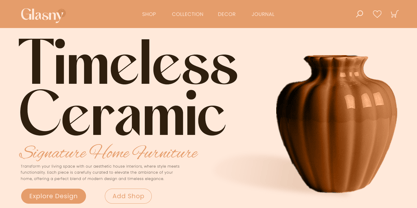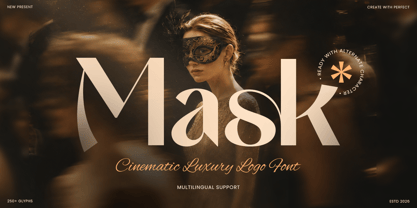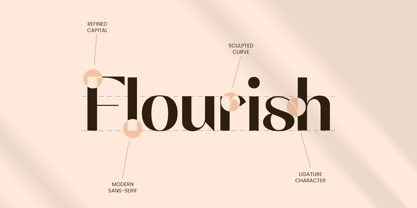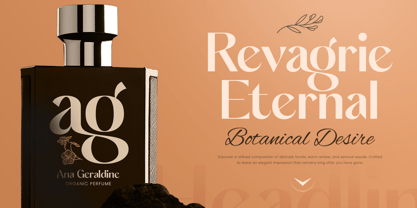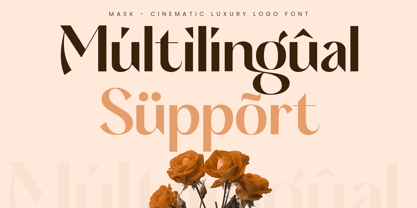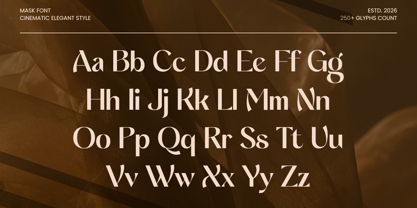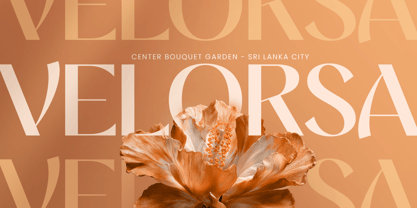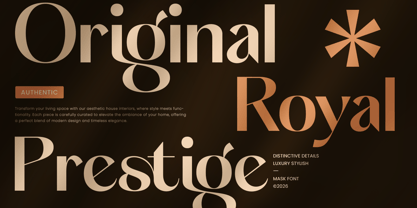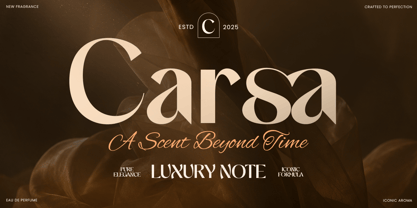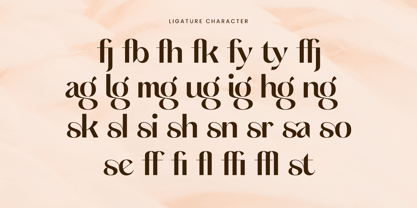
The Mask Font Family was designed by Zamroni Hamzah and published by Sensatype Studio. Mask contains 1 styles. More about this family
Mask is a cinematic luxury logo font designed to create a dramatic, elegant, and unforgettable visual identity. With refined letterforms, sophisticated proportions, and a premium cinematic aesthetic, this typeface is perfect for luxury logos, film titles, fashion branding, editorial layouts, packaging, and high-end creative projects.
Inspired by the elegance of cinematic typography and modern luxury design, Mask brings a strong visual presence while maintaining a refined and timeless character. Its stylish structure makes it ideal for creating memorable brand marks, movie-inspired visuals, magazine headlines, boutique identities, and premium product designs.
Whether used for luxury brands, creative studios, fashion labels, wedding designs, or cinematic campaigns, Mask delivers a sophisticated typographic experience across both print and digital media.
Mask – Cinematic Luxury Logo Font Features
• Cinematic-inspired design with elegant luxury character
• Perfect for logos, film titles, branding, editorials, and packaging
• Refined letterforms with premium visual impact
• Ideal for fashion, beauty, entertainment, lifestyle, and luxury brands
• Uppercase, lowercase, numerals, and punctuation included
• OpenType features for enhanced typographic styling
Create a cinematic and luxurious identity with MASK – the perfect logo font for premium branding, elegant titles, and sophisticated visual design. ✨🎬